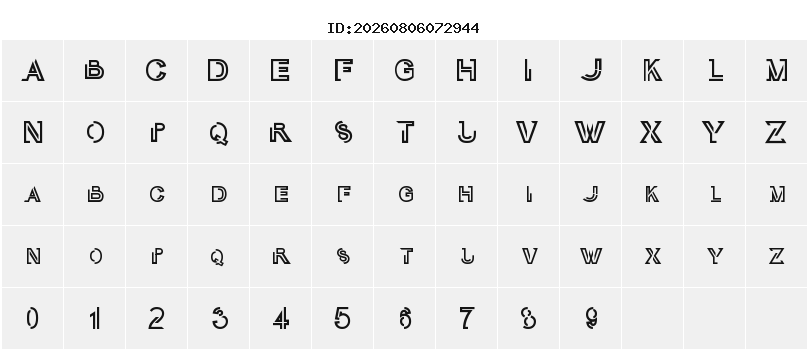
Oubli_CAP Preview
• Font Name: Oubli_CAP
• Full Font Name: Oubli_CAP
About Oubli_CAP.ttf
Oubli_CAP.ttf is a modern, elegant sans-serif font designed for ultimate readability and visual harmony. Perfect for branding, headlines, web design, and print materials.